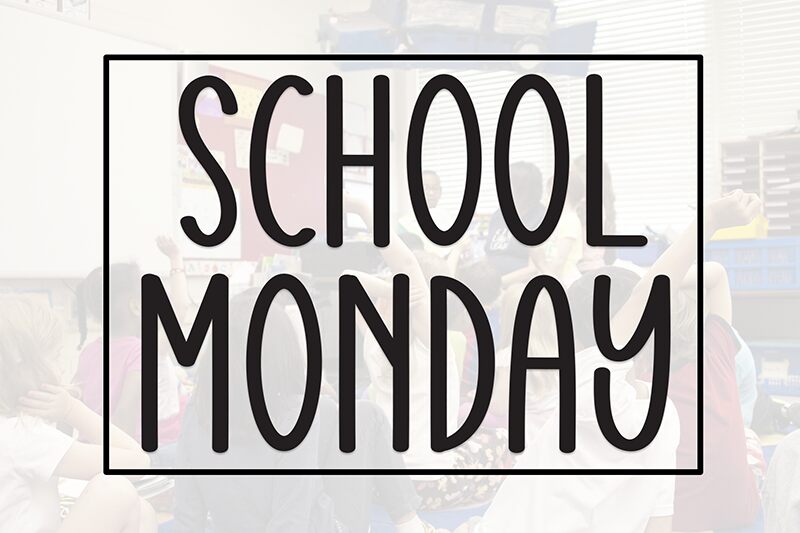
School Monday
School Monday font by Andi Moz is a condensed handwritten font with rounded forms and an approachable aesthetic. Achieving a casual vibe through its genuine handwritten quality, this typeface brings nostalgia to life. Old school pieces of writing preserved in time resonate well with this retro-style design which is a real achievement. The font perfectly imitates characters written by a ballpoint pen including those little uneven flaws that allow an authentic appearance.
School Monday cartoonish letters can achieve lots of purpose for your coming projects completely free! Present it as the main title font on posters, books, and magazines along with brand names or logos for fashion labels or food brands etc. Typographic purposes such as quotes, lettering artwork or even greeting cards are also possible!